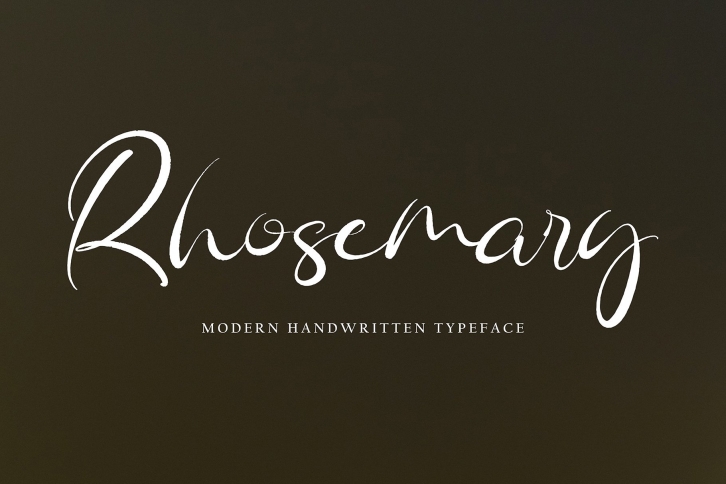
Rhosemary is a trendy and unique font with an authentic style. It was designed by Pineungtype and it's a great choice for creative people who need such a font. It was released on November 21, 2022 and the file size is 20.3 MB. Rhosemary will add an organic vibe to any design idea!